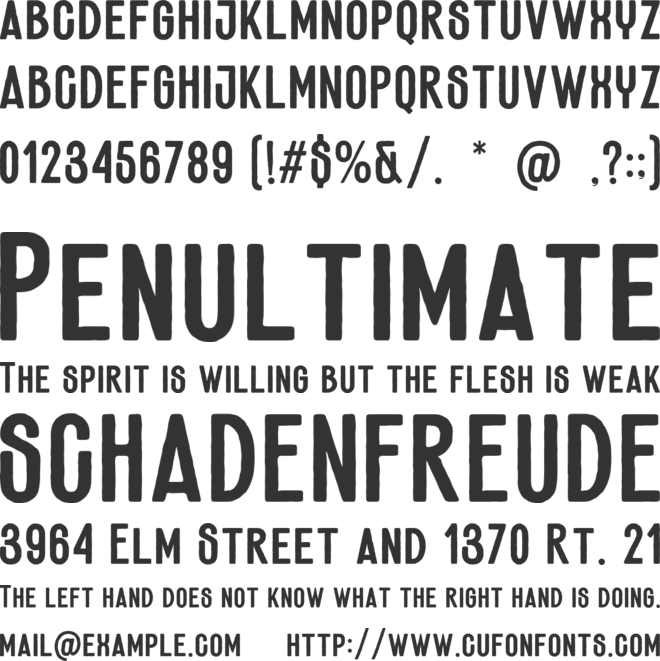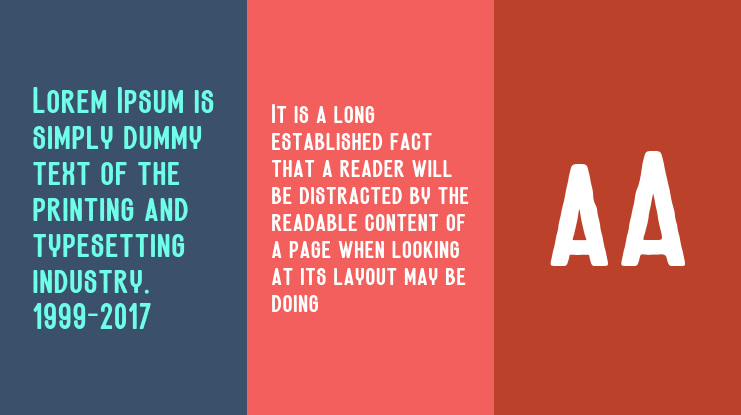
Soltisce Coast High Font
Ni Kadek Ema Pritadea
Soltisce Coast Typeface – Vintage Surf & Garage Collection
Soak up the sun and rev the engine. Welcome to Soltisce Coast, a typeface that seamlessly blends the laid-back vibes of a tropical island with the rugged grit of a custom motorcycle garage.
Designed with an authentic hand-stamped texture, Soltisce Coast is not just a font—it is a complete design toolkit. Whether you are branding a beach club in Bali, designing merchandise for a surf shop, or creating a logo for a custom mechanic, this typeface brings an instant heritage feel that usually takes hours to illustrate by hand.